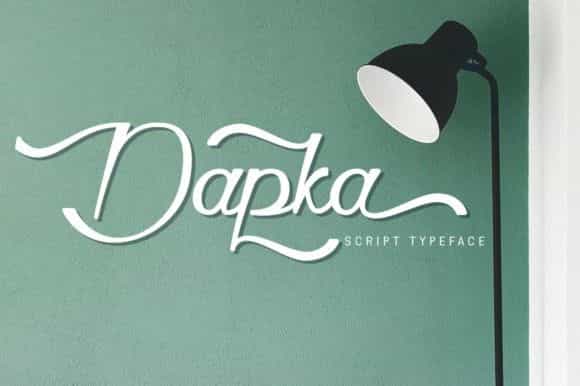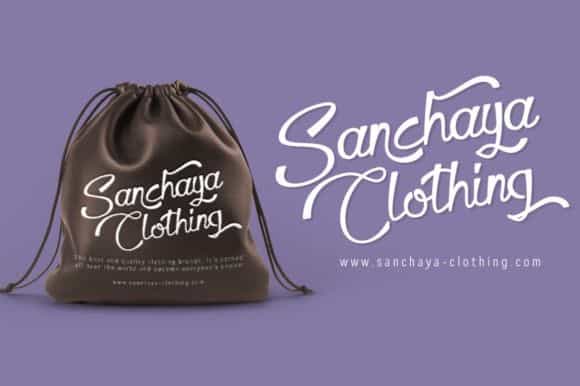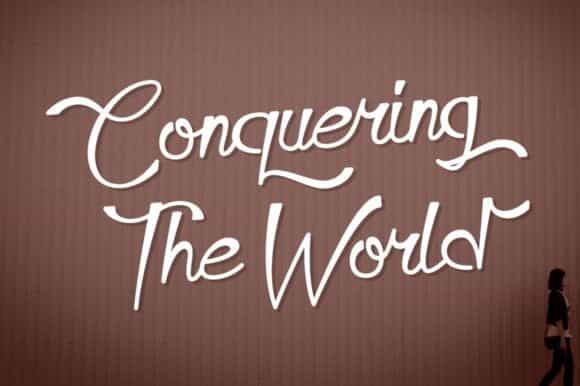
Dapka is a very beautiful Script font, it is suitable for using in any design such as wedding invitation, greeting cards, T-Shirt, Logo, etc. Equipped with standard characters, alternates, punctuation and international characters.